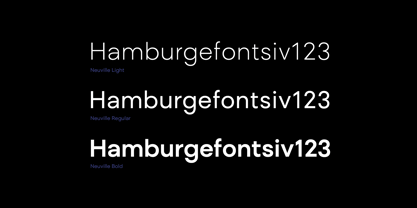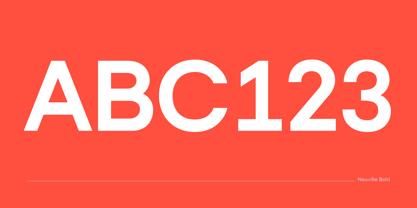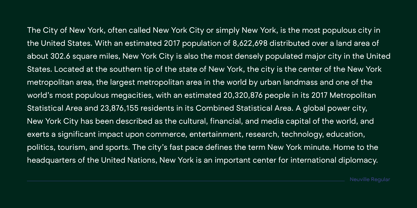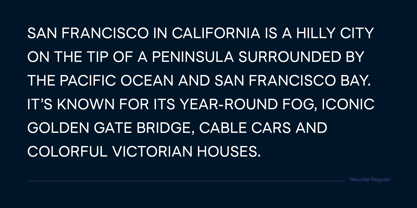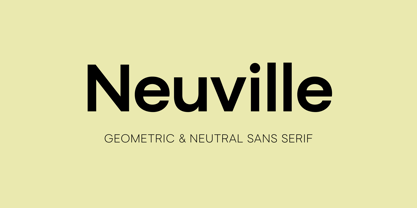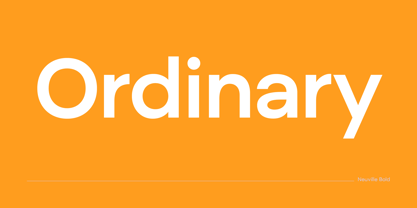
Neuville Font
This Neuville Font is perfect for French boutique branding, European luxury goods, sophisticated wine labels, elegant French restaurants, premium fashion houses, cultural heritage centers, French architectural firms, luxury travel agencies, artisan French products, and refined European communications.
What makes this Neuville Font exciting is its French sophistication that captures the refined elegance and cultural distinction of French heritage and European luxury excellence. The font features graceful letterforms with French characteristics that convey cultural refinement, European sophistication, and luxury authenticity. Its distinguished character and French-inspired design make it ideal for brands seeking to communicate French excellence, European luxury, and cultural sophistication in premium lifestyle markets.
The Neuville Font family includes light, regular, medium, and bold weights with French alternates, European variants, and sophisticated flourishes. This comprehensive luxury font family provides designers with refined typographic tools to create elegant compositions while maintaining the French character essential for luxury brands and European cultural communications.
French luxury brands and European cultural institutions consistently choose Neuville Font Free Download for projects requiring authentic French appeal and European sophistication. This font's distinctive refined character perfectly captures the French excellence and cultural elegance that resonate with audiences who appreciate French culture, European luxury, and brands that embody French sophistication and cultural refinement.
The elegant construction of Neuville Font showcases gracefully designed letterforms with French proportions that ensure exceptional sophistication across all luxury applications. Its cultural appearance and refined character create memorable impressions while maintaining the readability necessary for effective French communication and European luxury materials.
Professional designers appreciate how Neuville Font brings immediate French authenticity and European elegance to brand communications. The font's sophisticated nature allows organizations to communicate French excellence and cultural distinction while maintaining the professional quality necessary for effective positioning in French luxury and European cultural markets.
The distinguished appeal of Neuville Font makes it particularly effective for brands emphasizing French heritage, European sophistication, and cultural luxury. Its refined character resonates strongly with audiences who appreciate French culture, European elegance, and brands that represent the sophisticated refinement and cultural excellence of French heritage achievement.
Whether developing branding for French luxury companies or creating materials for European cultural venues, Neuville Font Free Download provides the sophisticated typographic foundation that French brands need to communicate their cultural excellence, European sophistication, and the refined elegance that defines French luxury and European cultural achievement.